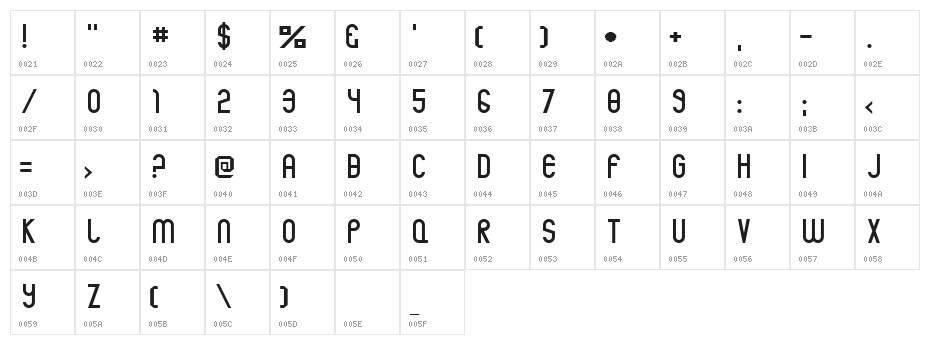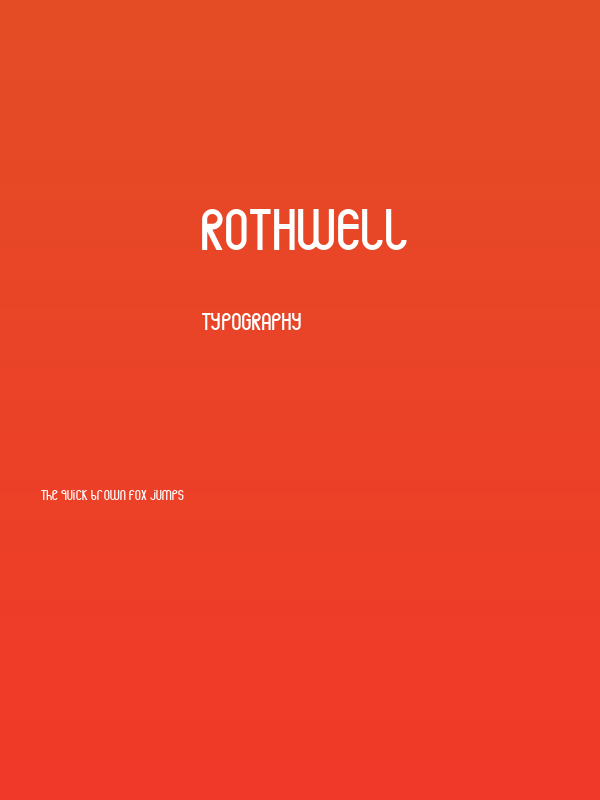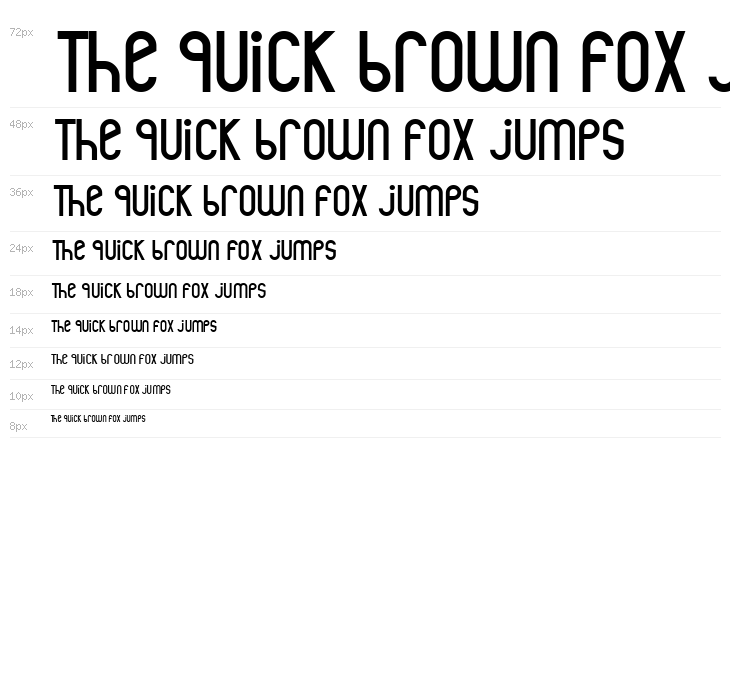
Rothwell Font
Rothwell Description
This font features a modern, geometric design with clean lines and a structured appearance. The characters are uniform in width, creating a cohesive and balanced look. The uppercase and lowercase letters maintain a consistent style, with rounded edges that soften the overall appearance. The numerals and special characters are designed to match the letterforms, ensuring a harmonious visual experience. This font's simplicity and clarity make it highly legible, even at smaller sizes, while its unique style adds a touch of sophistication to any project.